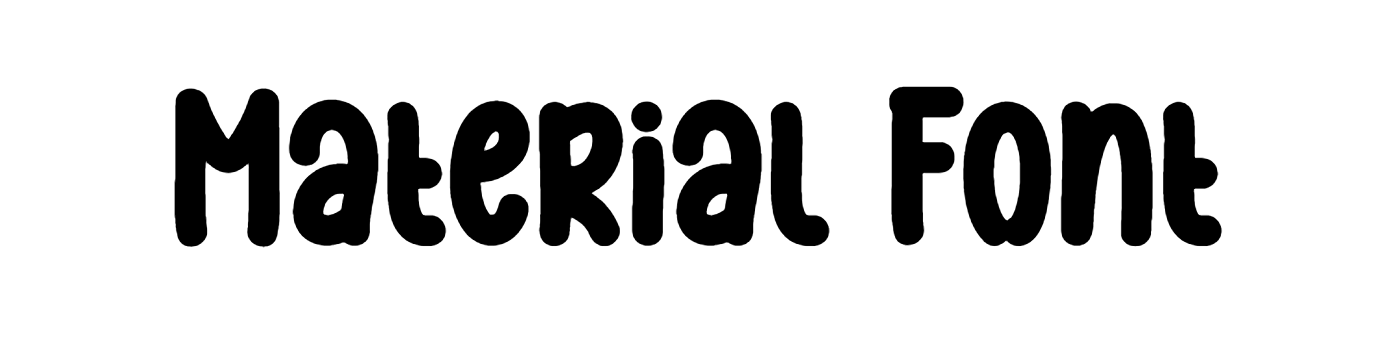
Material
Material is a cartoon font. Its bouncy, rounded letters feel playful, like lettering from a cartoon or a comic book. It's a free download, and you can try it with your own text in the preview above first.
What You Can Type With Material
You get every letter from A to Z in both cases and all the numbers from 0 to 9, which means Material can handle full sentences, dates and prices. Everyday marks like &, !, ? and @ are there too. Thanks to its accented letters, it also works for Spanish, French, German, Portuguese and Italian, not just English.
Where Material Works Best
Material is a natural fit for kids' books, birthday invites and fun YouTube thumbnails. Its lowercase letters are tall compared to the capitals, which keeps it readable at smaller sizes. Cartoon fonts are great for short, fun lines. If you place it over a busy photo, add a thick outline or a drop shadow so it stays readable.
Does Material support accented letters?
Yes. Material includes the accented letters needed for Spanish, French, German, Portuguese and Italian, so it works for more than just English.